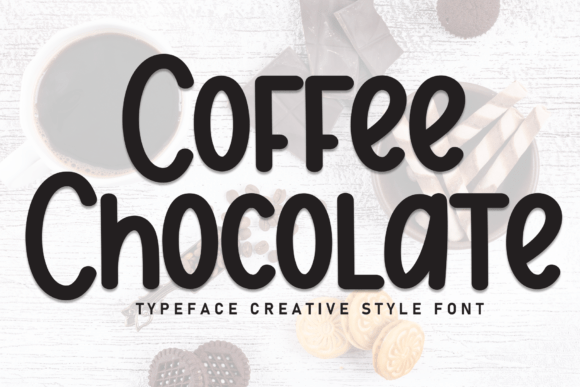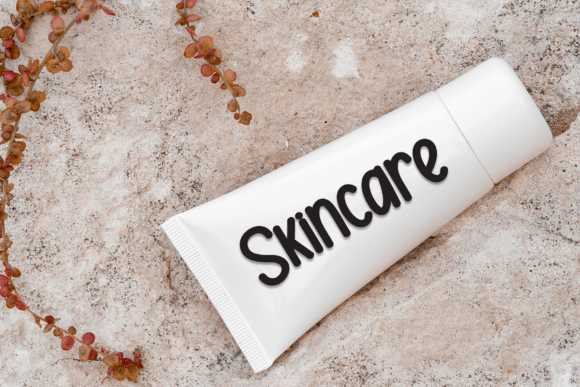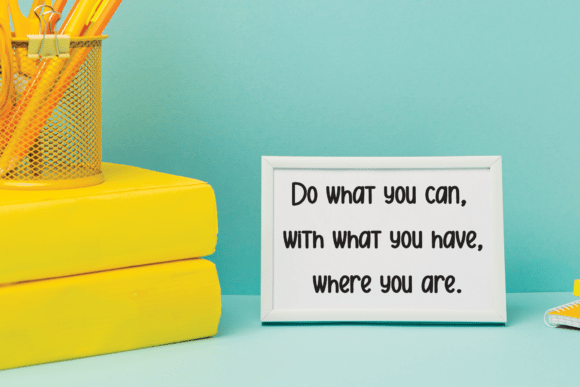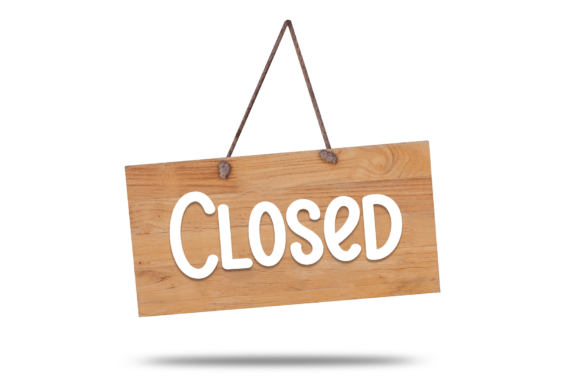
Coffee Chocolate Font
About the Coffee Chocolate Font
Discover the charm of Coffee Chocolate Font. This font is a perfect blend of modern aesthetics and classic appeal. Introducing the charming allure of a handcrafted display font, presenting the perfect balance of sweetness and amiability. This delightful font exudes a cute yet fun flair, transforming any design into an enchanting piece of art. From crafting romantic wedding invitations to whimsical greeting cards, this font breathes a joyful touch into any creation! Embrace the magic of this handwritten display font, an ultimate tool to infuse your designs with fun-filled charm.
Coffee Chocolate Font is ideally suited for headlines, short text blocks on packaging, and eye-catching signage. Its playful nature makes it perfect for branding projects targeting younger audiences or those emphasizing fun and approachability. Avoid using it for body text or lengthy paragraphs; its handcrafted feel lacks the legibility needed for extended reading.
Consider pairing Coffee Chocolate Font with a clean sans-serif like Open Sans for a balanced contrast, or a more geometric sans-serif for a modern twist. A delicate script font could also complement its charming quality for invitations or stationery. Conversely, pairing it with a strong serif would create a more striking, less playful feel.
The font’s overall personality is best described as friendly and whimsical, yet sophisticated enough to lend an air of playful elegance. It’s not suitable for projects requiring a serious or corporate tone.
Coffee Chocolate Font Usage Examples
Coffee Chocolate Font Example